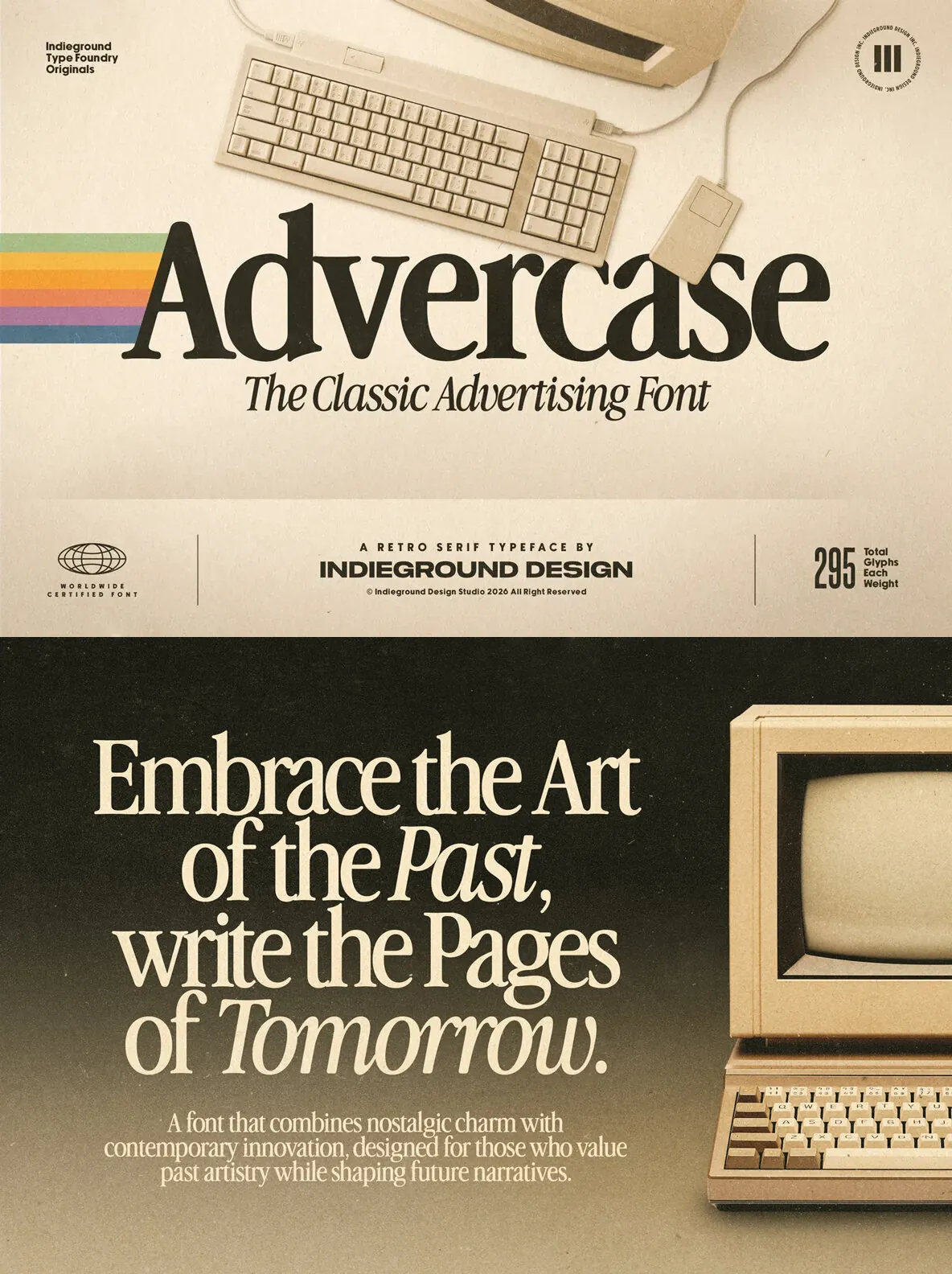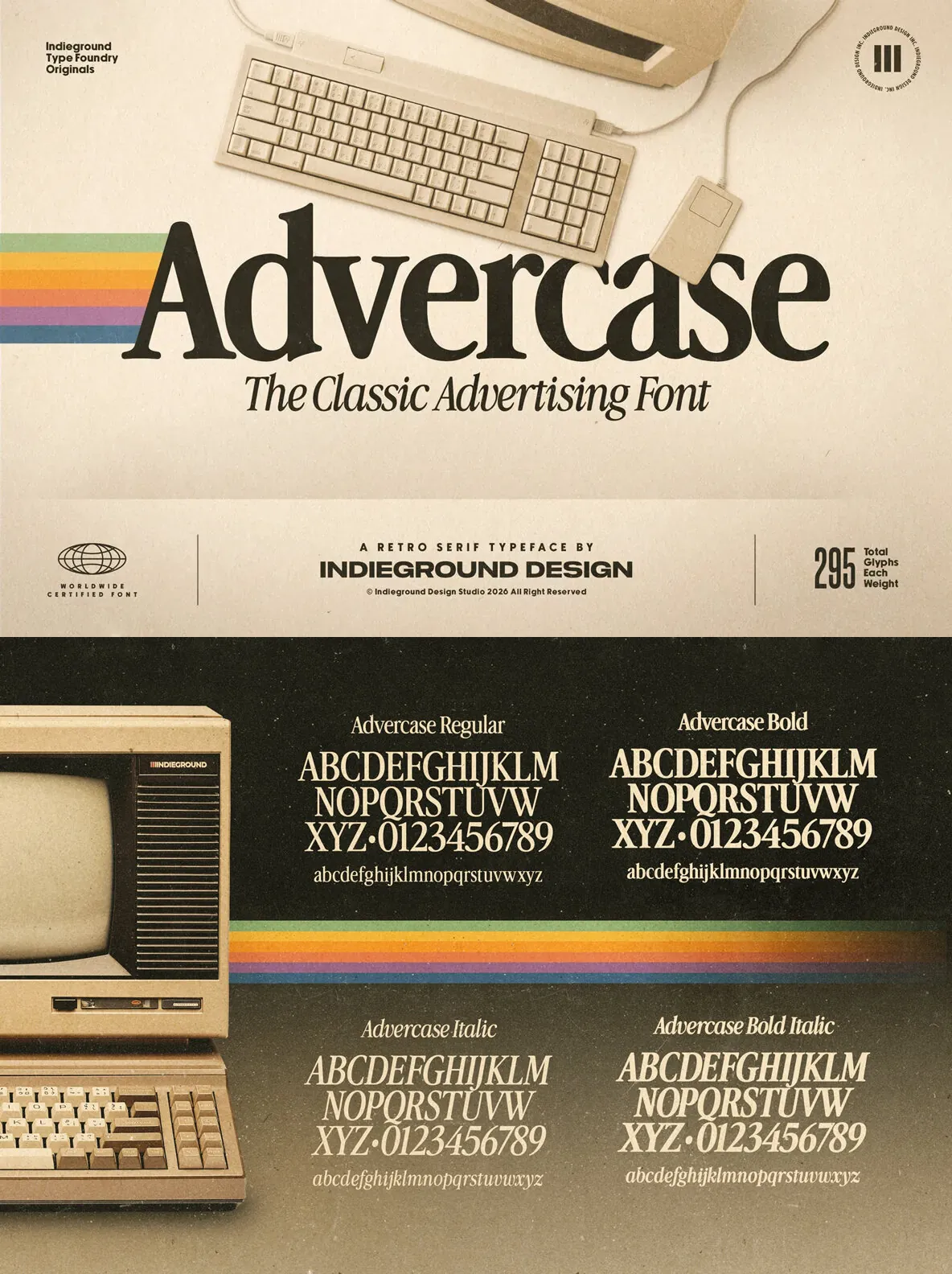
Advercase Font
Advercase — Retro Ads, Clean Finish
Advercase captures the character of classic ads and early personal computers, bringing a distinctive retro font style to contemporary design. Its crisp elegance and nostalgic charm create an authentic touch, making it a strong choice when you want visuals that reference the past with confidence.
Use Advercase across posters, branding, editorial layouts, and digital artwork. The vintage-inspired aesthetic reads clearly, so you can set bold headlines, logos, and creative graphics without losing legibility or sophistication. It also works smoothly across workflows, whether you’re designing for screen or preparing files for print.
Key Features
Classic, vintage-inspired design drawn from 20th-century advertising
Clean, readable letterforms for professional results
Ideal for bold headlines, logos, and creative graphics